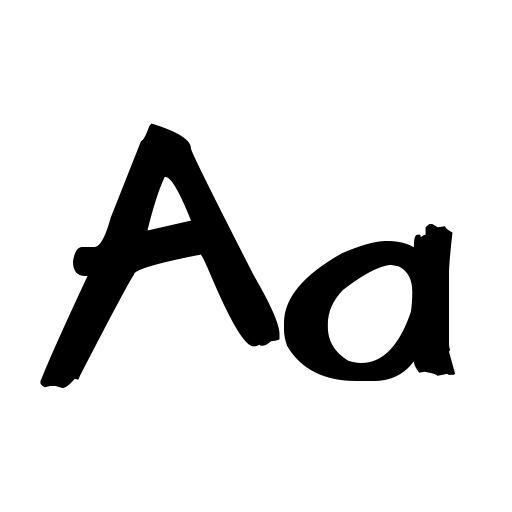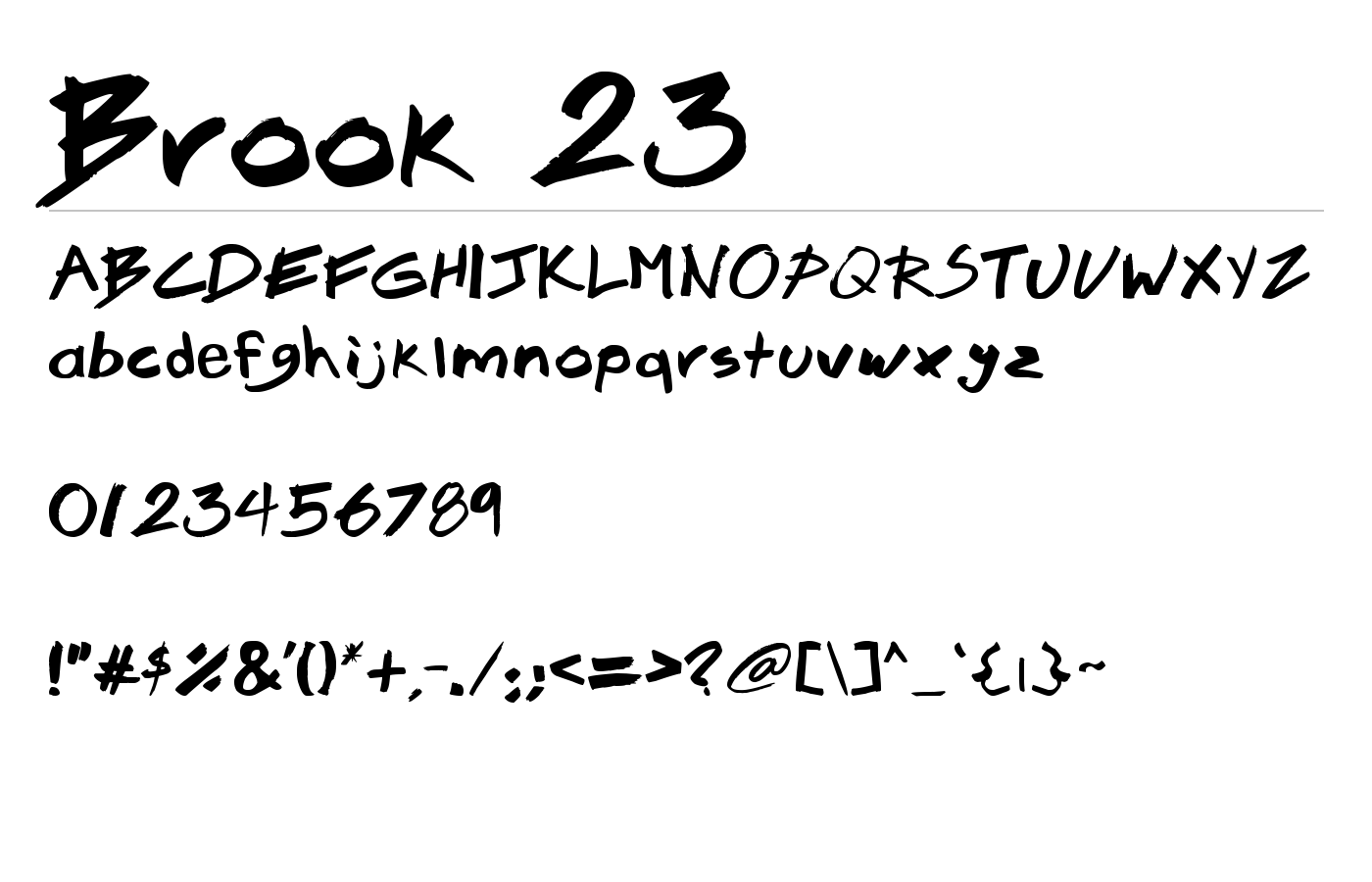
Brook 23 is a lively, casual brush script font with a hand-painted feel, featuring irregular, dynamic strokes and natural texture. Its energetic style is perfect for creative projects, informal branding, and headlines that seek to convey personality and warmth. This font works best where a playful, authentic touch is desired, such as posters, packaging, or artistic logos.
Brook 23 Font
About Brook 23 Font
| Font family | Brook 23 Font |
| Release date | 2008-11-25 |
| Designer | Miguel Angel Rios Garcia |